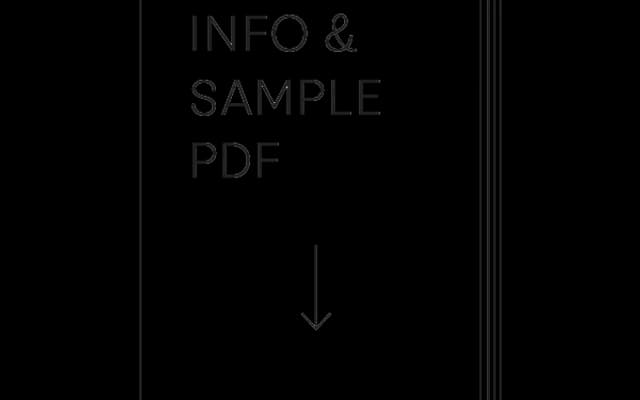
Ernesto
Nouvelle Noire · Clovis Vallois · 2010
An uppercase-only geometric sans in three weights, originally designed for the corporate identity of a cultural venue in southern Germany, referencing the geometric type of the Weimar era.
Designed by Clovis Vallois and released between 2010 and 2011, Ernesto was commissioned for the Ewerk Freiburg cultural space, with its forms derived from the building's architecture. The typeface looks to the geometric sans serifs of the late 1920s, particularly Kabel and Futura, as its formal reference points. It exists only in uppercase across Thin, Regular and Bold weights, each accompanied by two stylistic alternate sets.
Explicitly designed as a geometric sans serif, drawing on the spirit of Kabel and Futura from the 1920s; uppercase-only with a construction-based approach rooted in Bauhaus-era geometry.